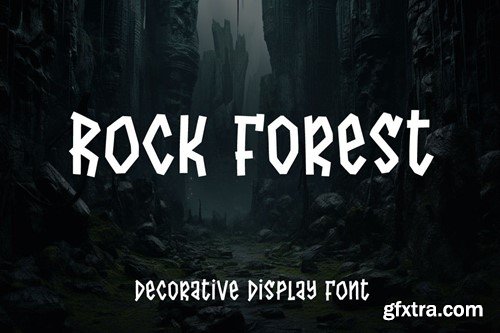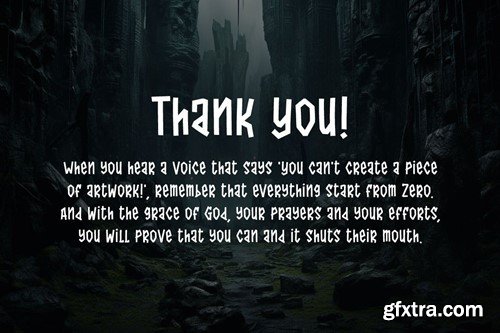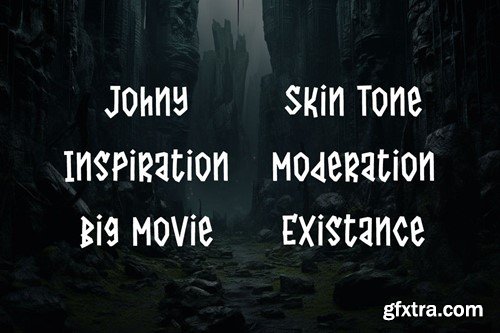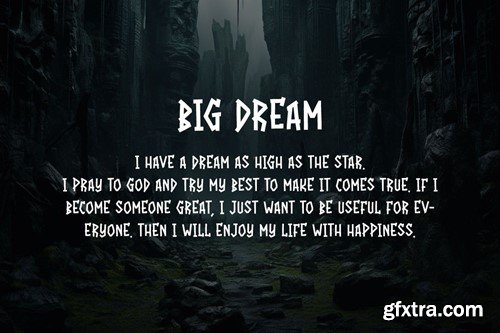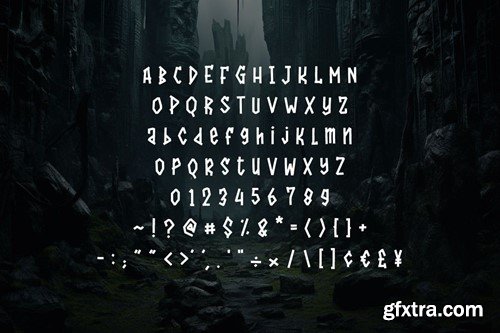
岩石森林 - 装饰字体 MGC9RSE
Introducing Rock Forest, a captivating decorative display font that transforms your words into a visual masterpiece. Crafted with precision and artistic flair, this typeface is a symphony of intricate details, offering a sophisticated and ornate aesthetic that commands attention. Each letter of Rock Forest is a work of art in itself, adorned with decorative elements that exude opulence and refinement. The intricate flourishes, delicate serifs, and graceful curves come together to create a harmonious balance between extravagance and legibility. The font's design is a celebration of decorative elegance, making it the perfect choice for projects that demand a touch of grandeur. The zip file is include: